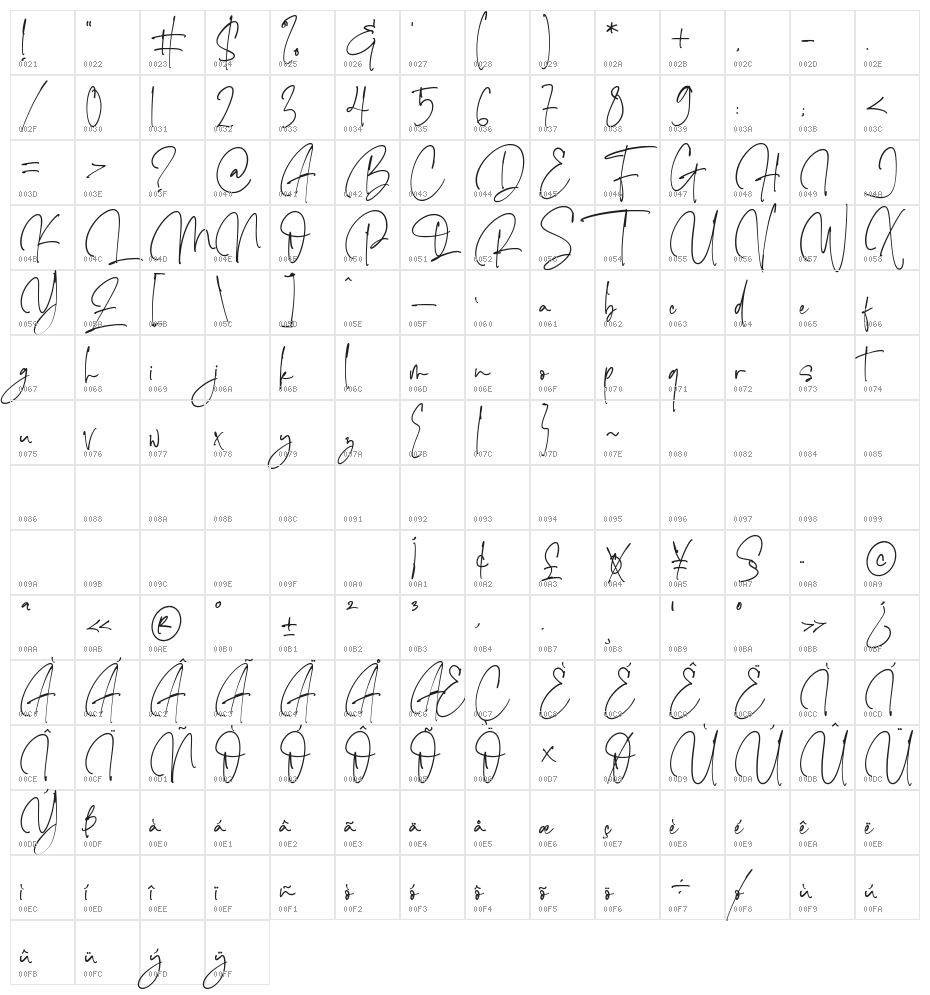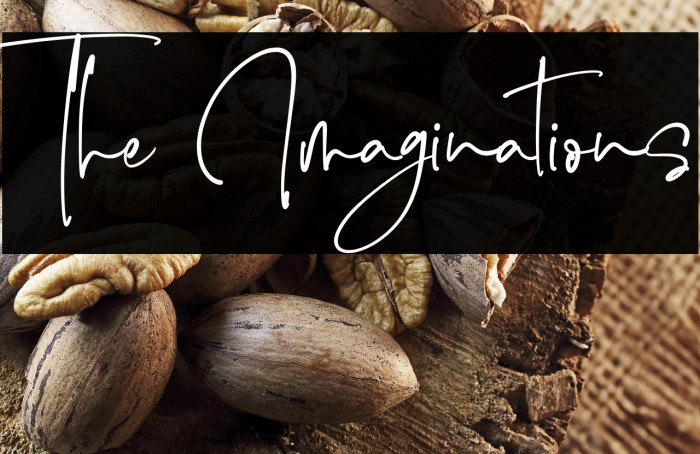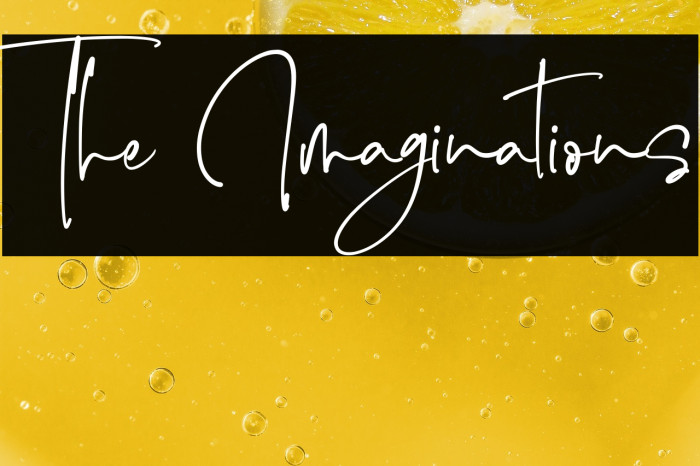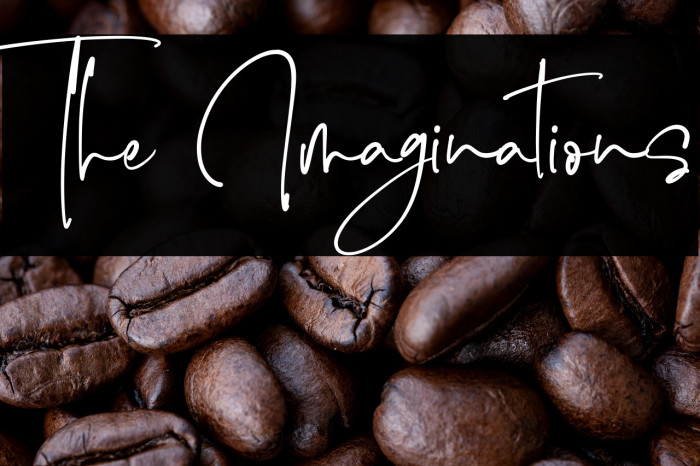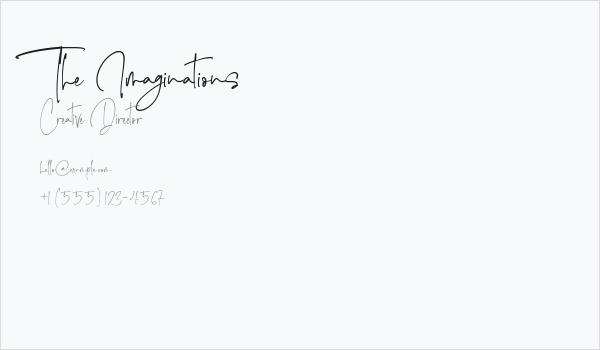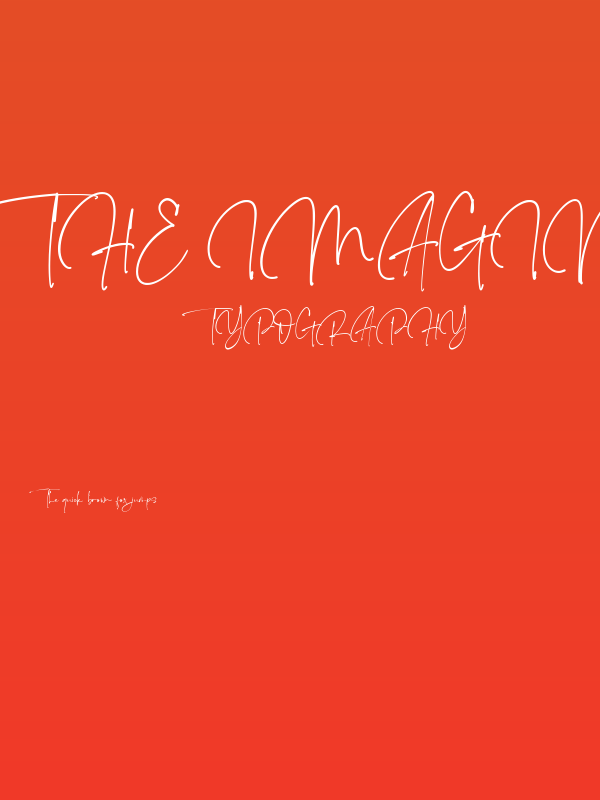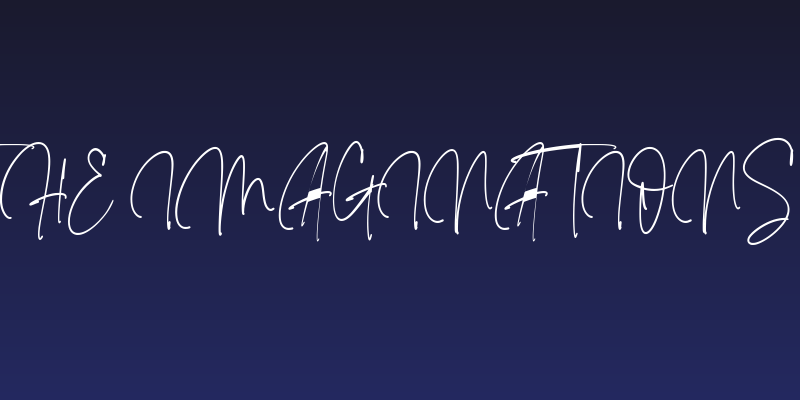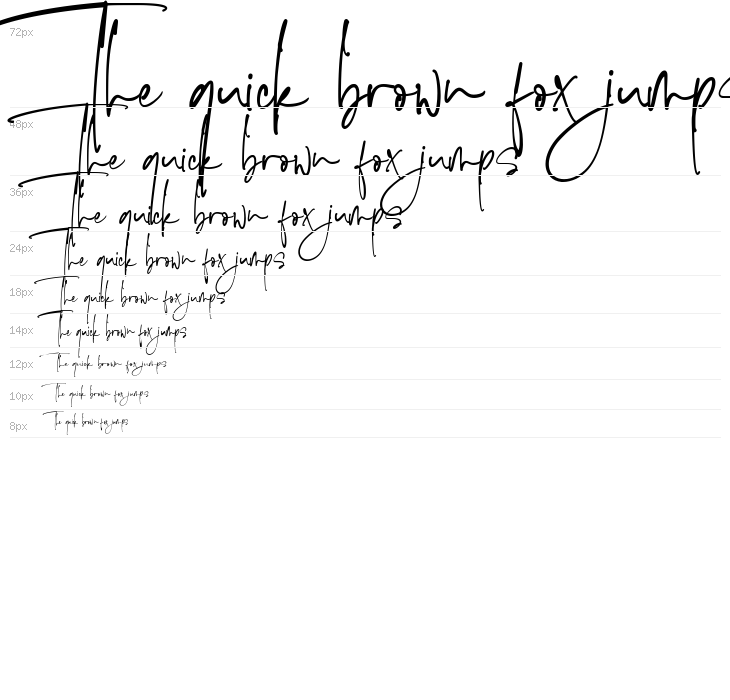
The Imaginations Font
The Imaginations Description
This font features a dynamic and expressive handwritten style, characterized by its fluid and flowing letterforms. The uppercase letters are elegantly curved with a consistent slant, giving a sense of movement and grace. The lowercase letters maintain a similar style, with some letters extending below the baseline, adding to the font's lively appearance. The numerals are distinct and maintain the same handwritten quality, ensuring readability while preserving the font's artistic flair. Special characters are thoughtfully designed to match the overall aesthetic, making this font versatile for various creative applications.
| Proposed Projects | Ideal for creative projects such as invitations, greeting cards, personal branding, and artistic posters. |